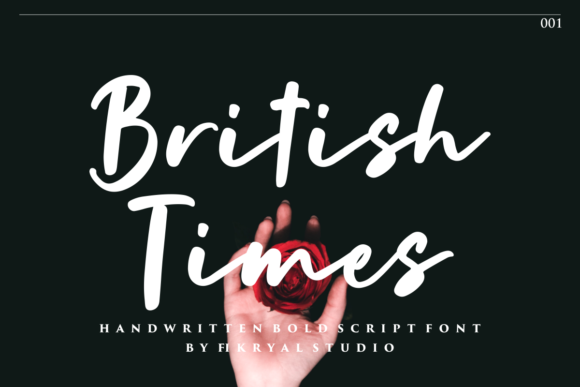
The British Times Font: A Simple yet Versatile Handwritten Delight
I’ll never forget the design moment when I stumbled upon the British Times font. I was working on a project for a client who wanted a warm, inviting, and elegant feel for their branding. I had spent hours scouring through font libraries, but nothing seemed quite right. That was until I discovered British Times – a simple, relaxed, and flowing handwritten font that instantly resonated with me. In this article, I’ll share my experience with this beautiful font, its features, and how you can make the most of it in your designs.
So, what makes British Times so special? Let’s dive into the good stuff and a few quirks I’ve noticed.
- ✨ Versatility: British Times is suitable for a wide variety of designs, from elegant branding to casual crafts.
- ✅ Easy to Read: The font’s flowing script and clear lettering make it easy on the eyes, perfect for body text or headings.
- 💫 Aesthetic Appeal: Its relaxed, handwritten feel adds a touch of warmth and personality to any design.
While British Times is an excellent font, there are a few things to keep in mind:
- ⚠️ Legibility at Small Sizes: Like many script fonts, British Times may lose some legibility when scaled down too small. It’s best used at larger sizes for optimal impact.
- 🤔 Overuse of Embellishments: While the font’s subtle flair is charming, overusing it or combining it with too many other decorative elements can make your design look cluttered.
One of the exciting aspects of British Times is its support for OpenType features. These features allow for advanced typographic control, including:
- Stylistic Alternates: Offers variations of letters and symbols for a more customized look.
- Swashes: Elegant flourishes that can add a touch of sophistication to your text.
- Ligatures: Combines letters for a more fluid, connected script.
A Glimpse into the Designer’s Inspiration
Though the specific origins of British Times might be shrouded in mystery, it’s clear that the designer aimed to create a font that embodies warmth, simplicity, and elegance. Inspired by classic British typography and the fluidity of handwritten scripts, British Times brings a touch of sophistication to any project.
Q: Is British Times suitable for body text?
A: Yes, British Times is legible and can be used for body text, especially in larger sizes or in designs where readability is key.
In conclusion, British Times is a versatile and charming font that can elevate a wide range of design projects. Its simplicity, aesthetic appeal, and support for advanced typographic features make it a valuable addition to any designer’s toolkit. Whether you’re crafting elegant branding, creative crafts, or digital content, British Times is sure to leave a lasting impression.